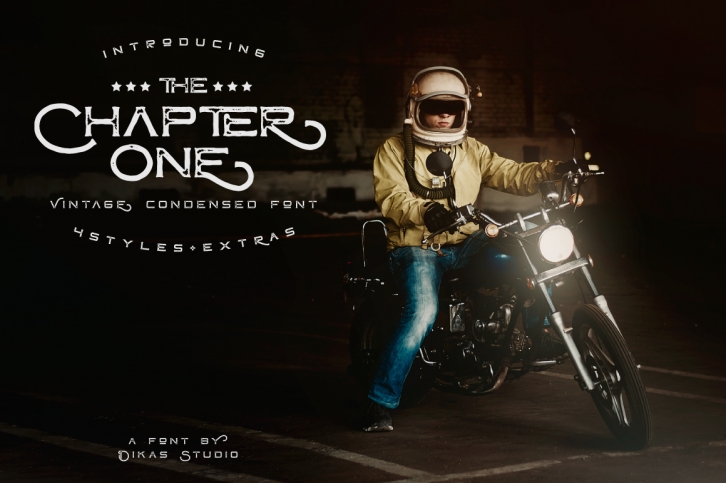
ChapterOne is an amazing font that has 4 styles : Clean, Press, Rough & Vintage with vintage condensed characters to get the most unique and personalized vintage styled typography possible.